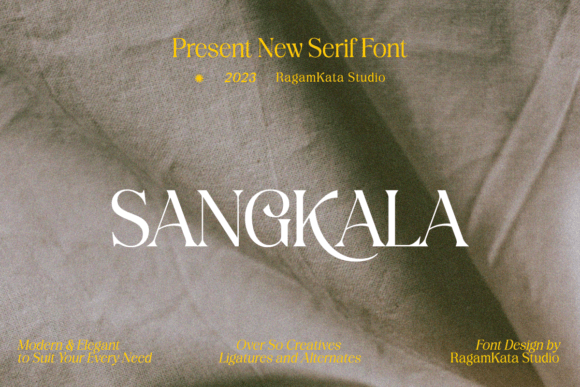
Experience the timeless elegance and modern sophistication of Sangkala, the serif font family that will captivate your audience and leave a lasting impression. Crafted with meticulous attention to detail, Sangkala seamlessly blends classic charm with contemporary aesthetics, making it the perfect choice for a wide range of design projects.
With its distinct serifs and graceful curves, Sangkala exudes a sense of sophistication and luxury. Each letterform is carefully designed to strike a perfect balance between legibility and visual appeal, ensuring that your message is conveyed with clarity and style. Whether you're creating a logo, designing a book cover, or crafting a magazine layout, Sangkala will elevate your work to new heights.
Unleash your creativity and let Sangkala be your partner in visual storytelling. Its versatile nature makes it suitable for a diverse range of applications, from elegant wedding invitations to eye-catching social media posts. Whether you're targeting a traditional or modern audience, Sangkala has the power to resonate with your message and make it shine.
Immerse yourself in the world of Sangkala and explore the endless possibilities it offers. Let your imagination soar as you craft beautiful and compelling designs that captivate and inspire. With Sangkala, the creative possibilities are limitless, and your vision will come to life with stunning clarity and sophistication.